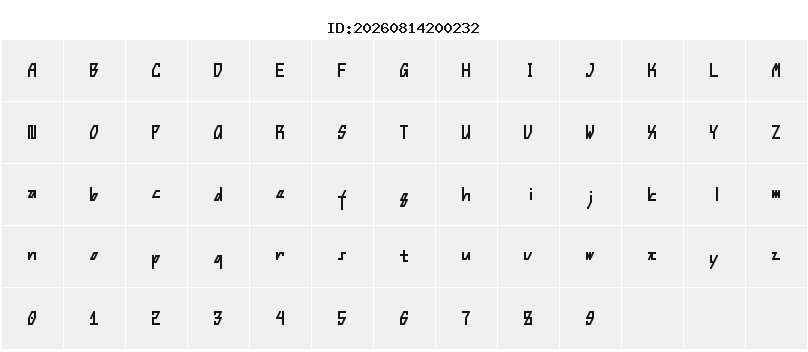
• Font Name: Steep
• Designer: CMunk
• Description: “Steep” was built with FontStruct
Steep.ttf is a modern, elegant sans-serif font designed for ultimate readability and visual harmony. Perfect for branding, headlines, web design, and print materials.